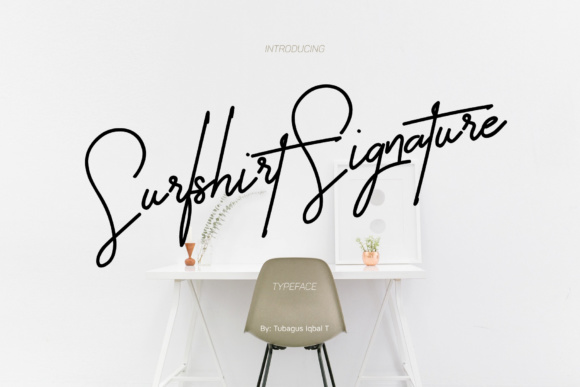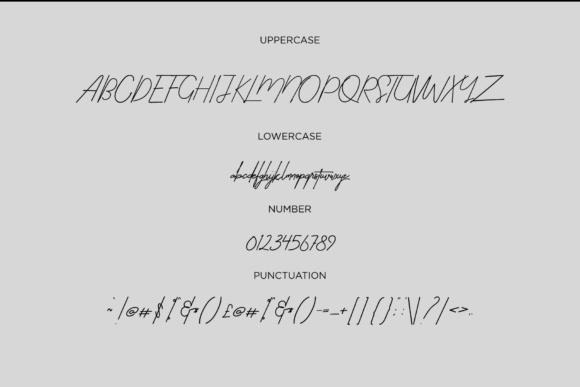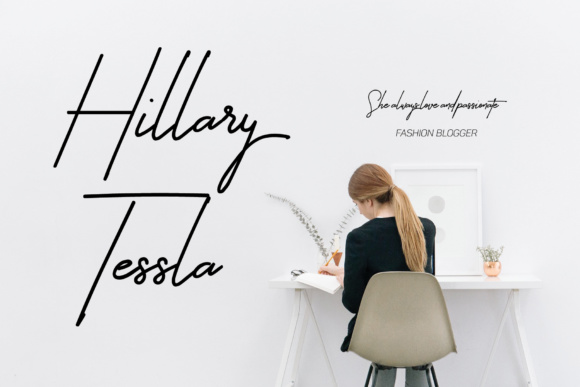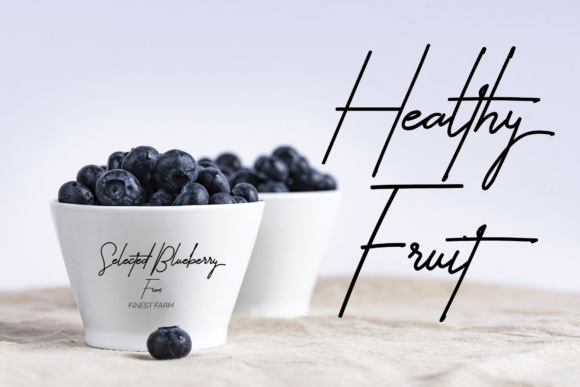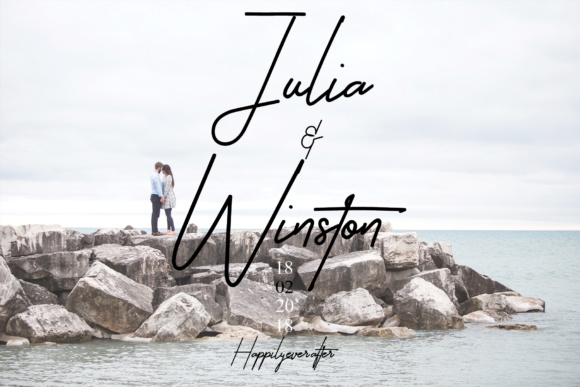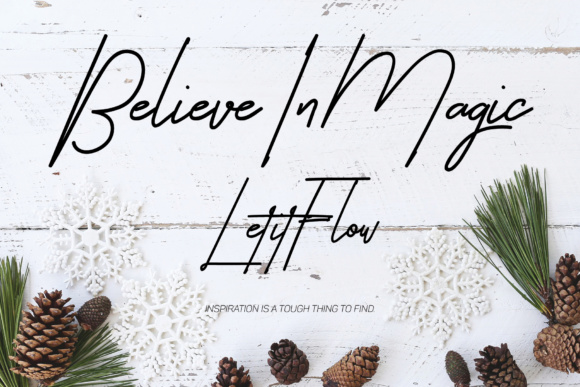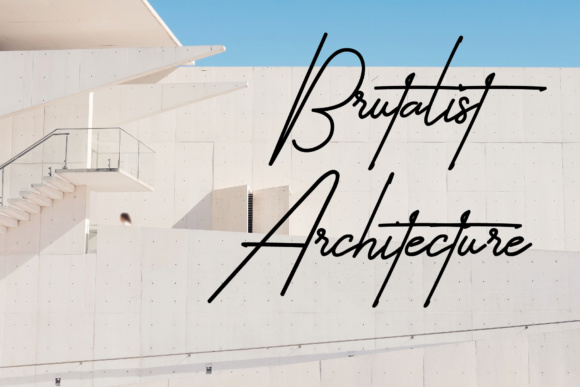
Surfshirt Signature Font
About Surfshirt Signature Font
You know a sign of your initial name would not good look if you use sans serif so we brought you here to look at something fresh, beautiful and meaningful. Surfshirt Signature with a signature feel for your perfect design.